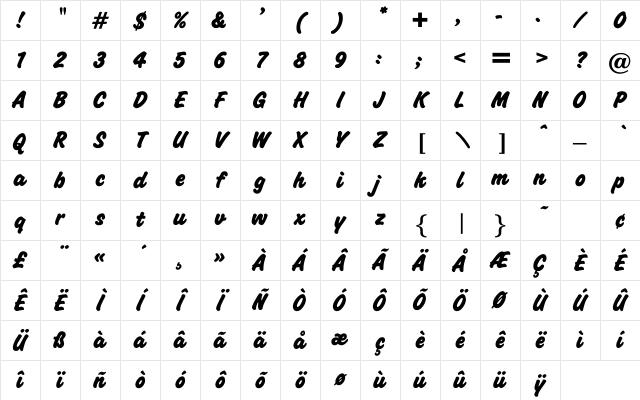
Catullus Regular
Design Context for Catullus
Catullus is a composed and adaptable typeface that performs quietly and consistently across a wide range of design contexts.